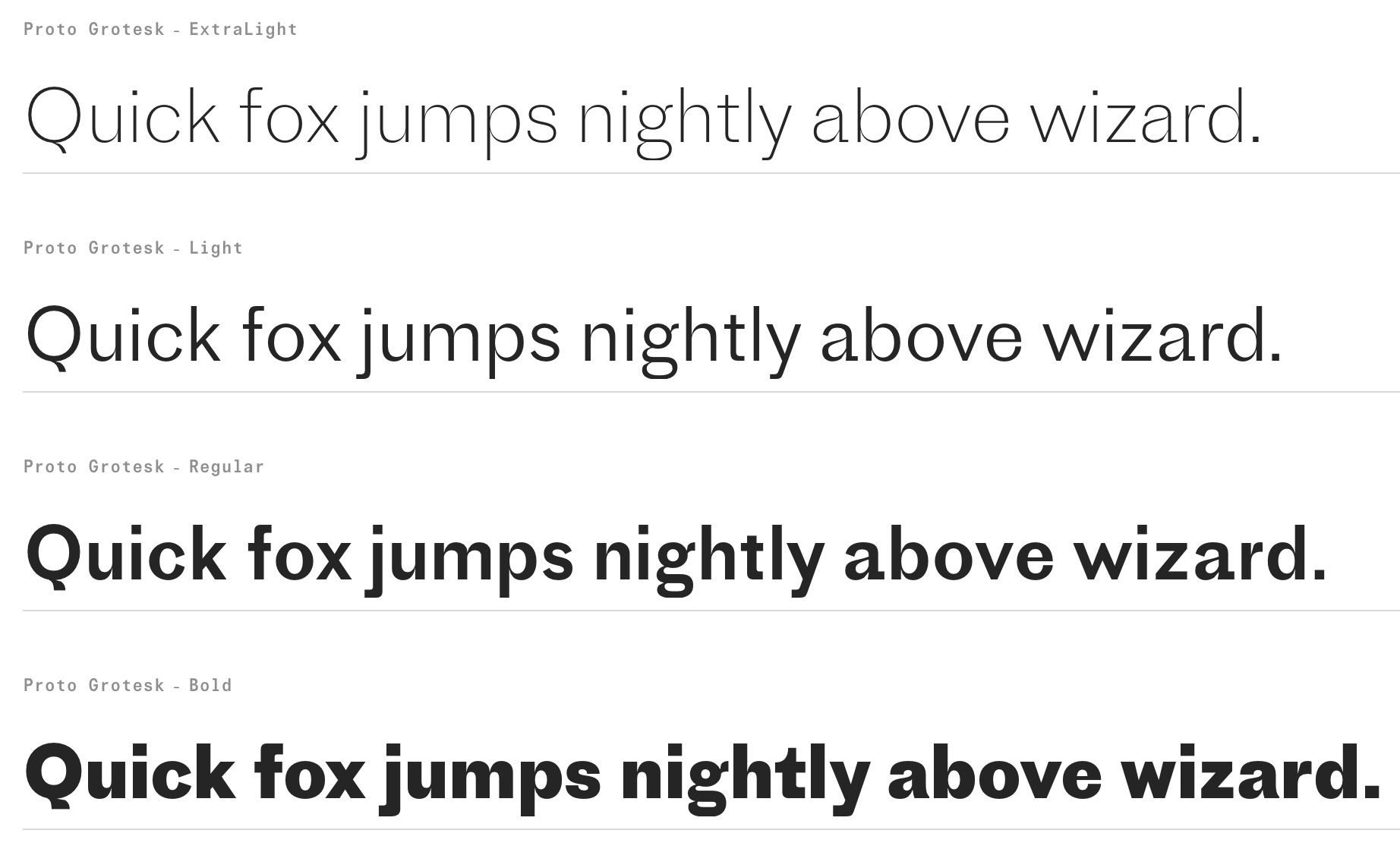
Proto Grotesk Font
Proto Grotesk Font excels in industrial design portfolios, modernist architecture presentations, early 20th-century exhibition displays, design history publications, Bauhaus-inspired branding, industrial machinery documentation, minimalist art gallery signage, functional design showcases, prototype development materials, and foundational design education resources. This revolutionary typeface brings historical modernism and industrial purity to any design-focused project.
Proto Grotesk Font is exciting because it represents the foundational principles of modernist typography, featuring the pure geometric forms and functional aesthetics that defined the early grotesk movement. Its proto-modernist character embodies the revolutionary spirit of design pioneers who stripped away decorative elements to reveal typography's essential functional beauty.
The Proto Grotesk Font family includes Ultra Light, Light, Regular, Medium, Bold, and Black weights with matching italics, plus condensed and extended variants that maintain the geometric purity while offering flexibility for various modernist layout requirements and spatial design applications.
Design historians appreciate Proto Grotesk Font for its authentic representation of early modernist typography and its connection to the revolutionary design movements that transformed visual communication. The font's geometric precision and systematic construction reflect the same principles that guided Bauhaus designers and industrial design pioneers in their quest for functional beauty.
The cultural significance of Proto Grotesk Font extends beyond mere aesthetic choices, representing the democratizing force of modernist design that made typography accessible, functional, and universally readable. Creative teams working on design education, architectural projects, or industrial applications find this font essential for connecting with modernist design heritage.
Whether used for design museum exhibitions, architectural documentation, or industrial product catalogs, Proto Grotesk Font delivers uncompromising modernist authenticity and functional clarity. Its historical importance and design purity make it an indispensable choice for projects that celebrate the foundational principles of modern design and the revolutionary legacy of early typography pioneers.